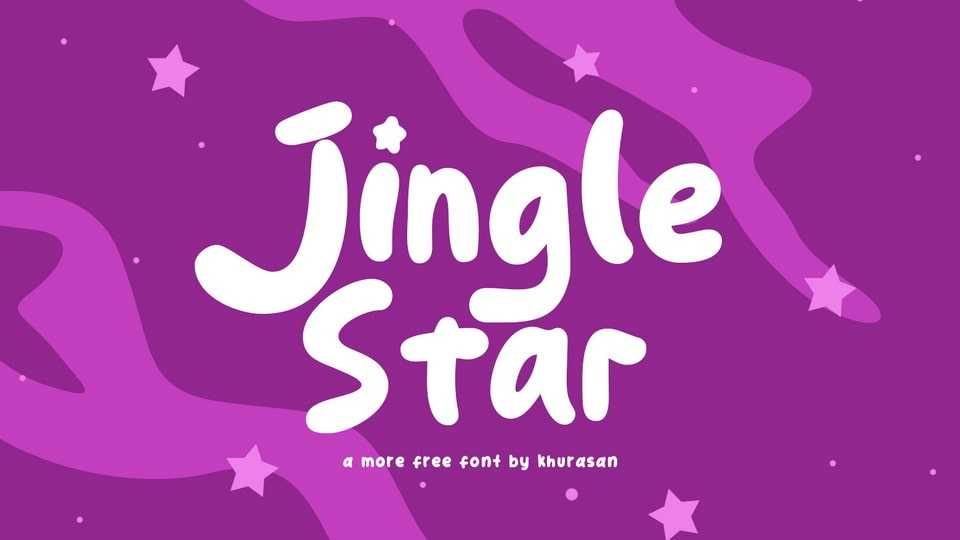
Download Jingle Star font, a lovely and sweet handwritten typeface designed to bring good vibes. This adorable handwriting font is perfect for creating the cutest quotes, greeting cards, and graphics for social media.